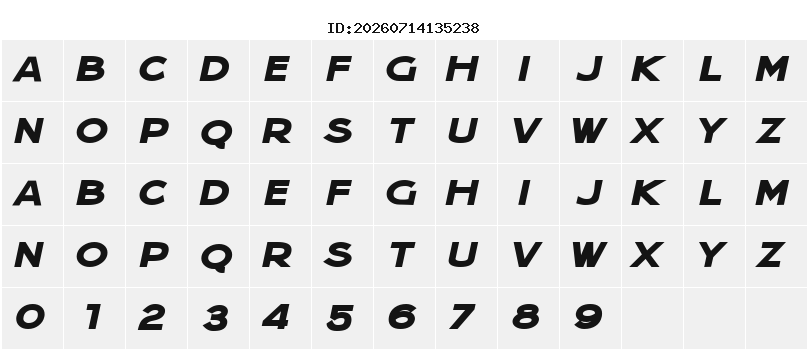
Jera Sans Heavy Italic JL Preview
• Font Name: Jera Sans Heavy Italic JL
• Designer: Jeffrey N. Levine
• Manufacturer: Jeff's Fonts & Dingbats
• Description: An experimental sans serif family.
About Jera Sans Heavy Italic JL.ttf
Jera Sans Heavy Italic JL.ttf is a modern, elegant sans-serif font designed for ultimate readability and visual harmony. Perfect for branding, headlines, web design, and print materials.